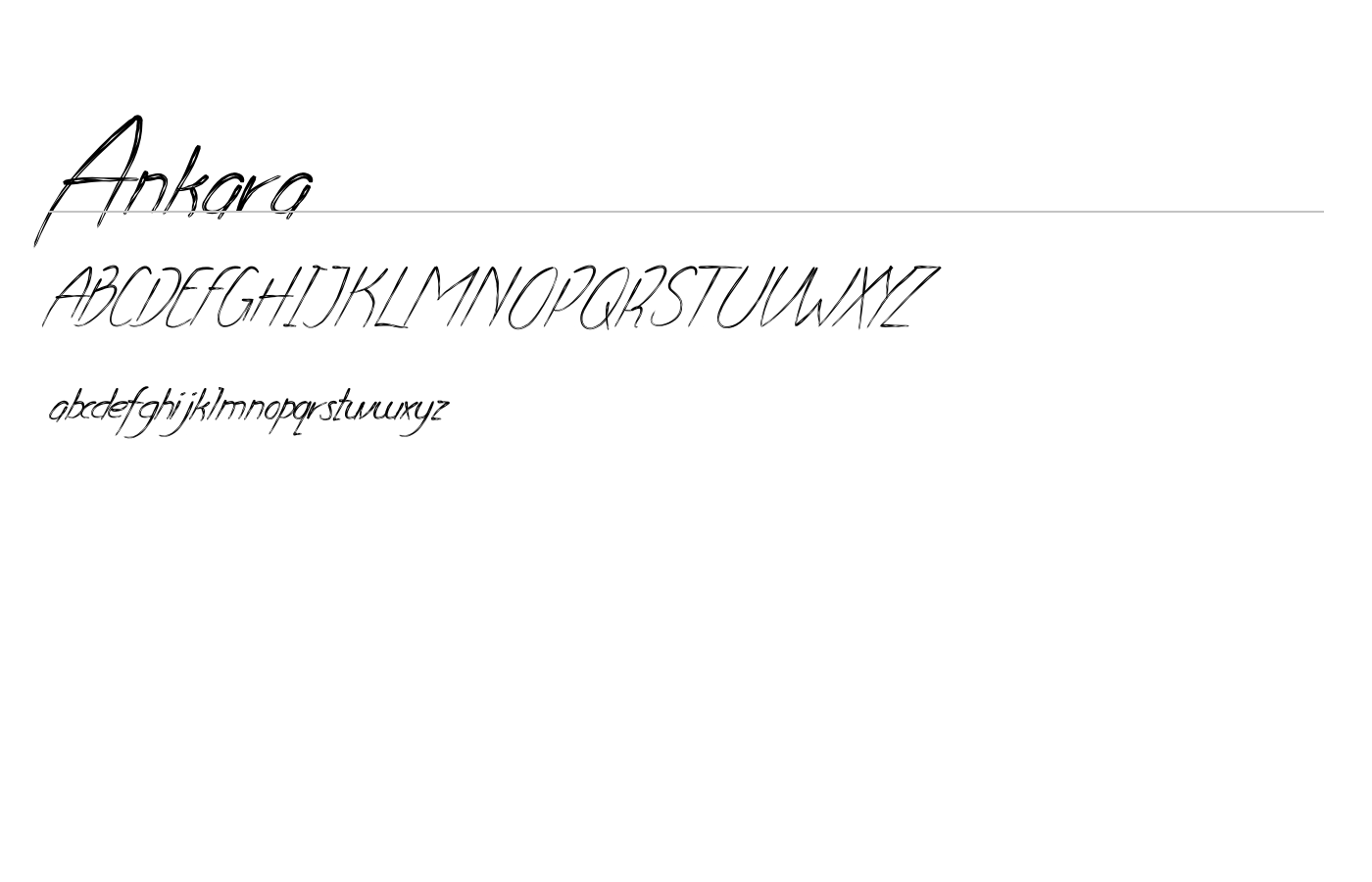
Ankara is a slender, elegant script-inspired font with a delicate, hand-drawn feel. Its thin, slightly angular strokes and flowing letterforms create a stylish, modern look that is ideal for creative branding, invitations, or artistic projects seeking a refined yet personal touch. This font works best in headlines or short text where its graceful character can shine without losing readability.
Ankara Font
About Ankara Font
| Font family | Ankara Font |
| Designer | Putri Ayu Wulandari |